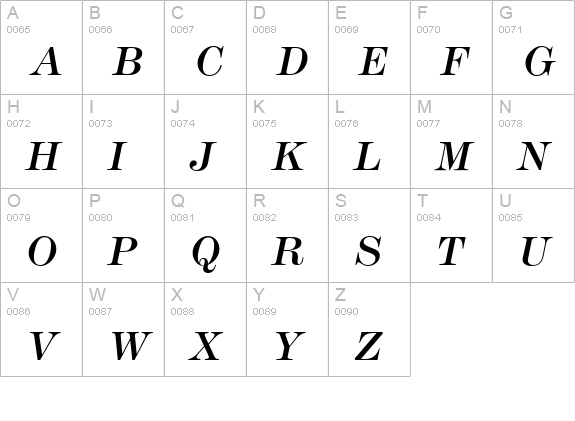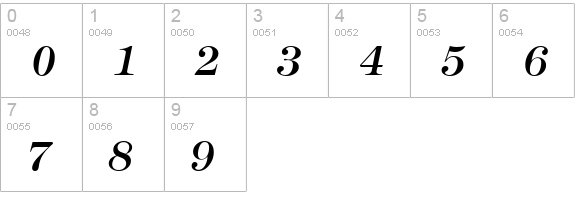
M791-Modern-Italic is a distinctive, italic variant in the M791 typeface family \xE2\x80\x94 well suited to design and typography projects.
The M791 Modern Italic font is a sleek and sophisticated typeface that exudes elegance and modernity. Its stylish and unique italicized design makes it perfect for adding a touch of class to any project. The sleek lines and graceful curves of this font give it a contemporary feel that is both eye-catching and versatile. What sets the M791 Modern Italic font apart is not only its striking appearance but also its accessibility. This premium font is available for free download at FontsMarket.com, allowing designers and creatives alike to easily incorporate it into their projects without breaking the bank. Whether you're working on a professional presentation, a stylish branding project, or a creative design piece, the M791 Modern Italic font is sure to elevate your work to the next level. Download this exquisite font today and add a touch of modern sophistication to your designs.